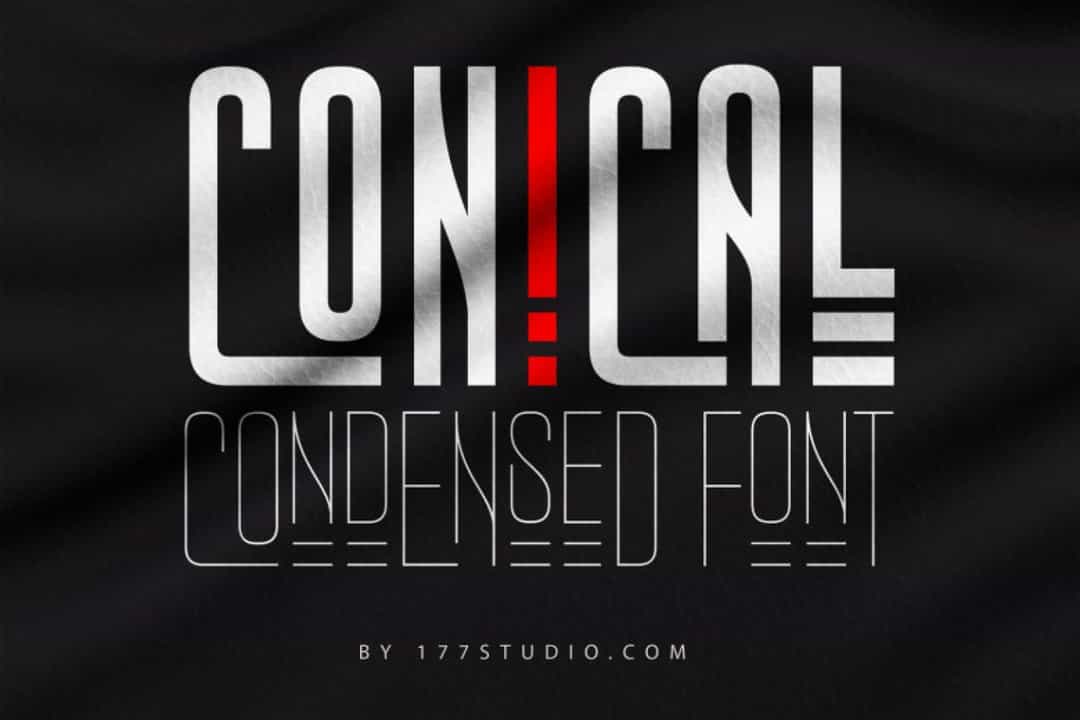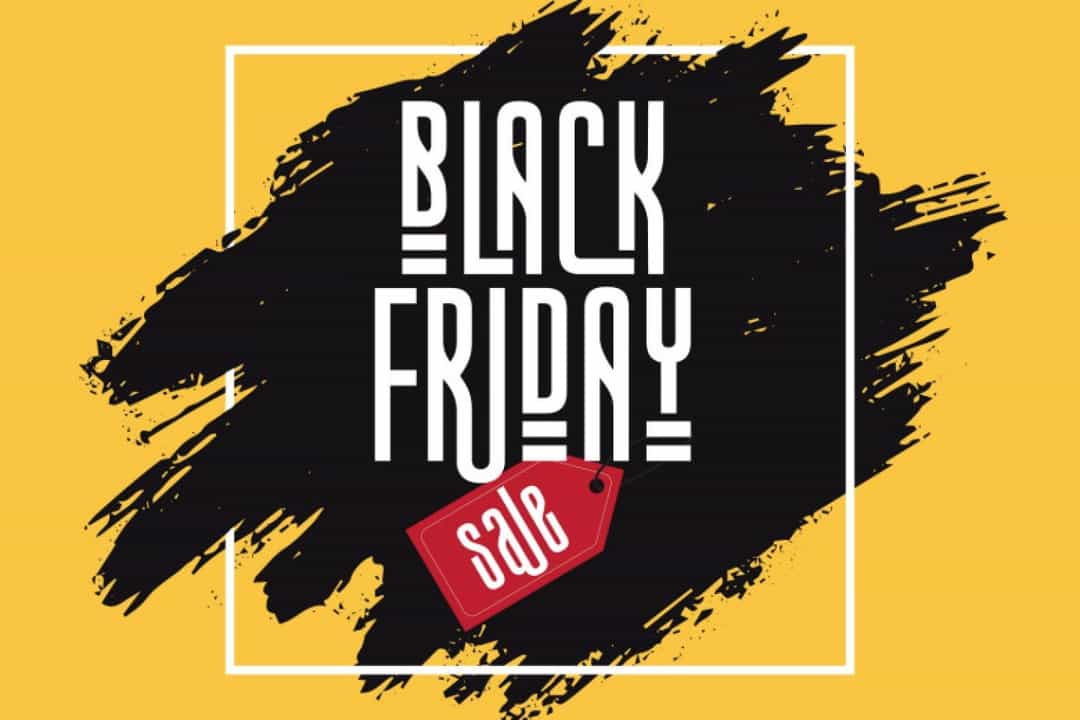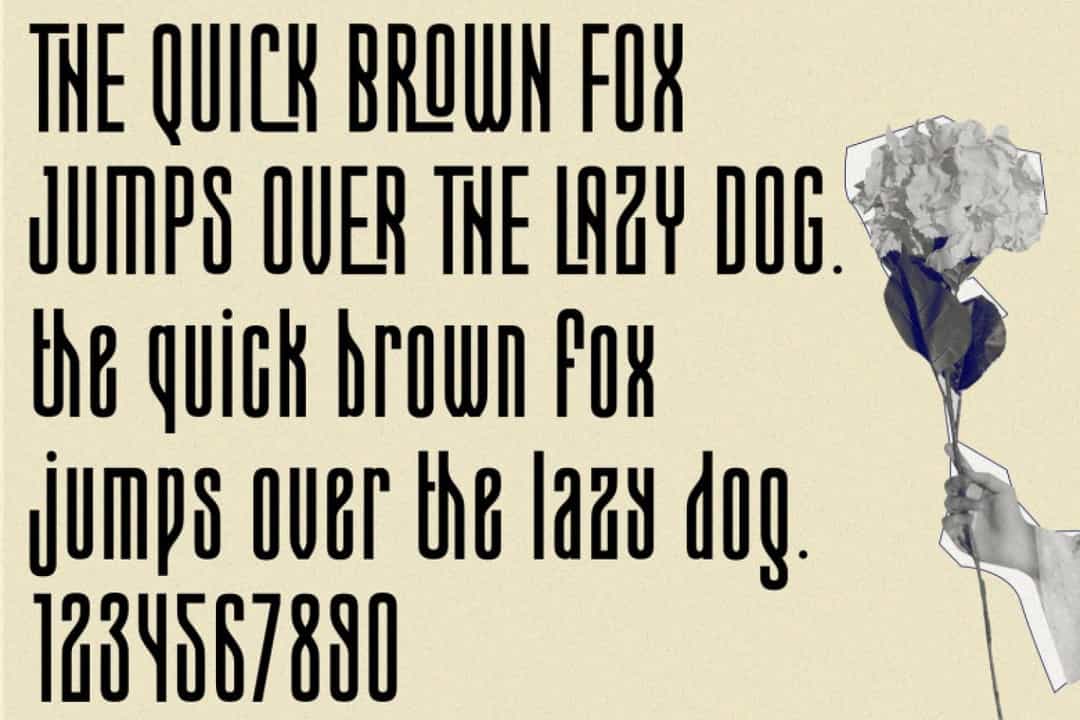
Conical Condensed is an ultra-condensed sans serif typeface available in six styles designed specifically for display use. With its tall and simple design, this font adds elegance and contemporary vibes to your designs – ideal for titles, quotes, logos web magazines covers editorial designs printing posters window shop designs signage etc.